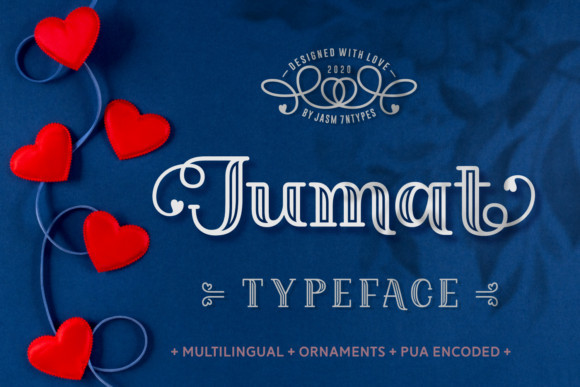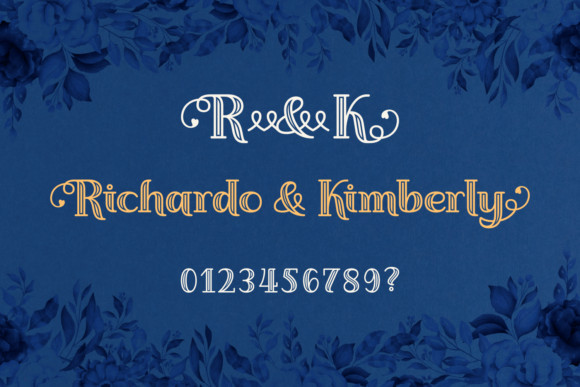
Jumat Font
Jumat is a distinct, elegant display font that blends traditional influences into a contemporary aesthetic. Its well balanced Latin details contain distinctive contrasts. Use Jumat to achieve an exquisite, yet subtle look and maximum versatility.